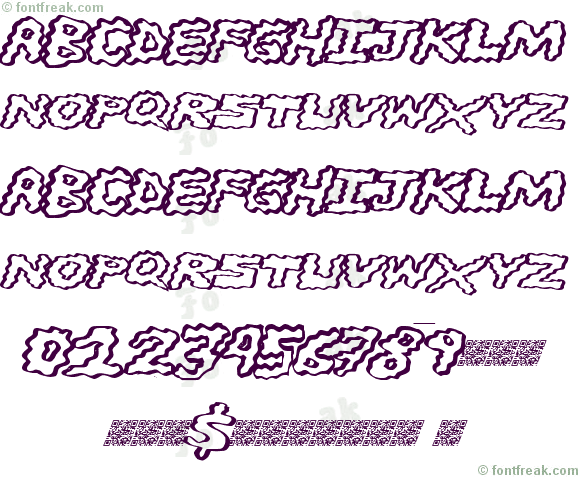
BrainWashers
The BrainWashers font by XEROGRAPHER FONTS is a captivating display typeface that embodies an eclectic and imaginative style. Released in 2014, this freeware font features a playful, cartoonish aesthetic characterized by its irregular, wavy strokes and bold outline. The stroke weight varies throughout the letters, creating a dynamic visual rhythm that draws attention. The open spacing between characters enhances readability while contributing to the overall whimsical vibe of the typeface.
BrainWashers is ideal for a variety of creative projects. It excels in applications such as quirky event posters, where it can bring an element of fun and excitement to the design. Additionally, its unique style makes it a great choice for children’s book covers, where the playful nature of the font can engage young readers. Graphic designers may find it particularly useful for branding or marketing materials aimed at a youthful audience, such as social media graphics or merchandise. Moreover, it can be effectively used in promotional materials for festivals or music events, where its bold presence can contribute to an energetic atmosphere.
The target audience for the BrainWashers font includes graphic designers, small business owners, and content creators looking to infuse their projects with a lively and distinctive touch. Its versatile style allows for creativity across various mediums, making it a valuable addition to any designer’s toolkit.